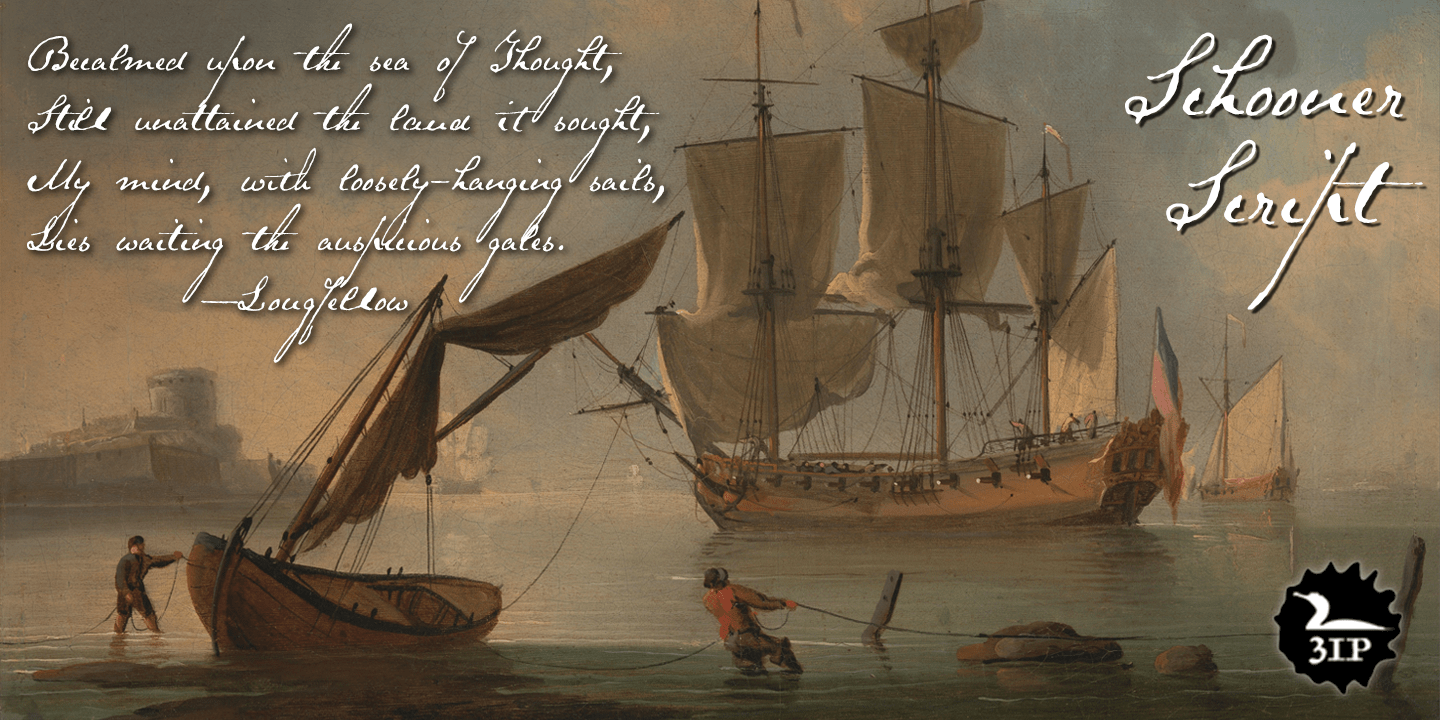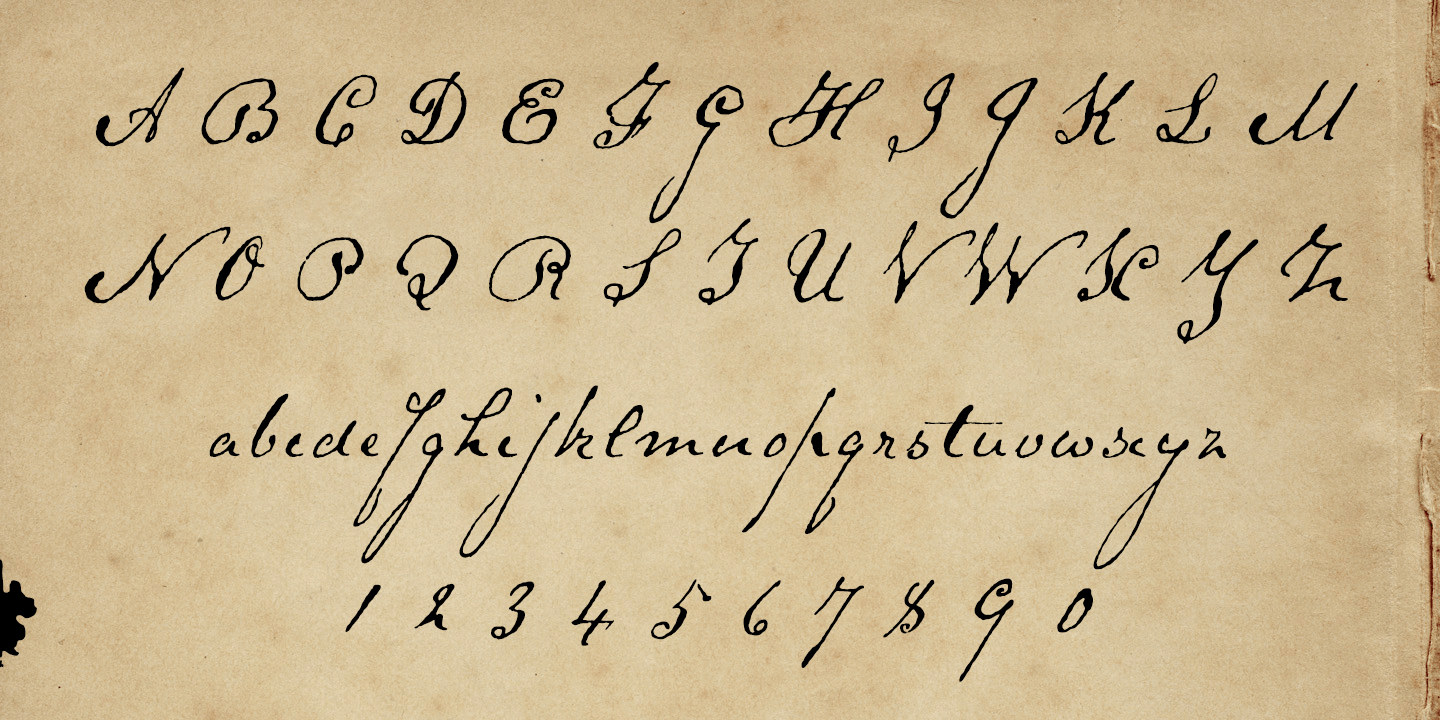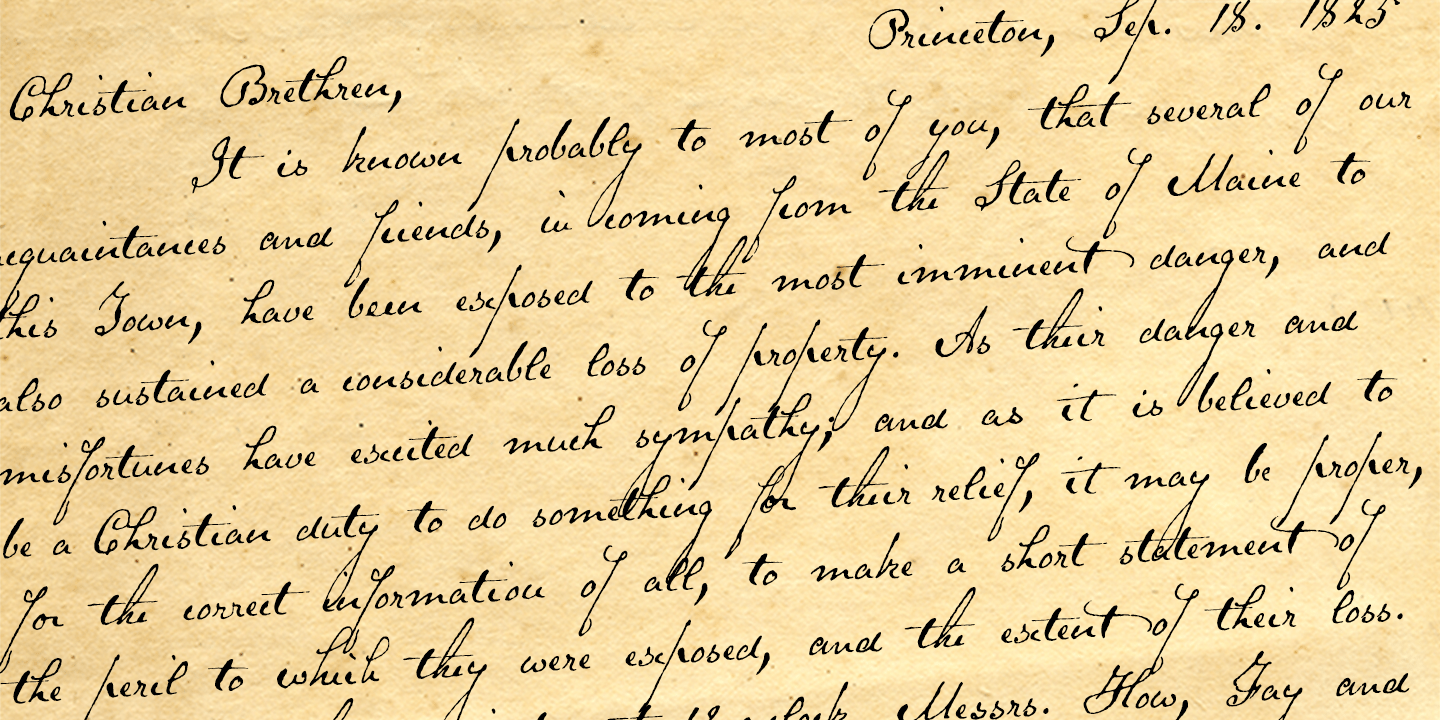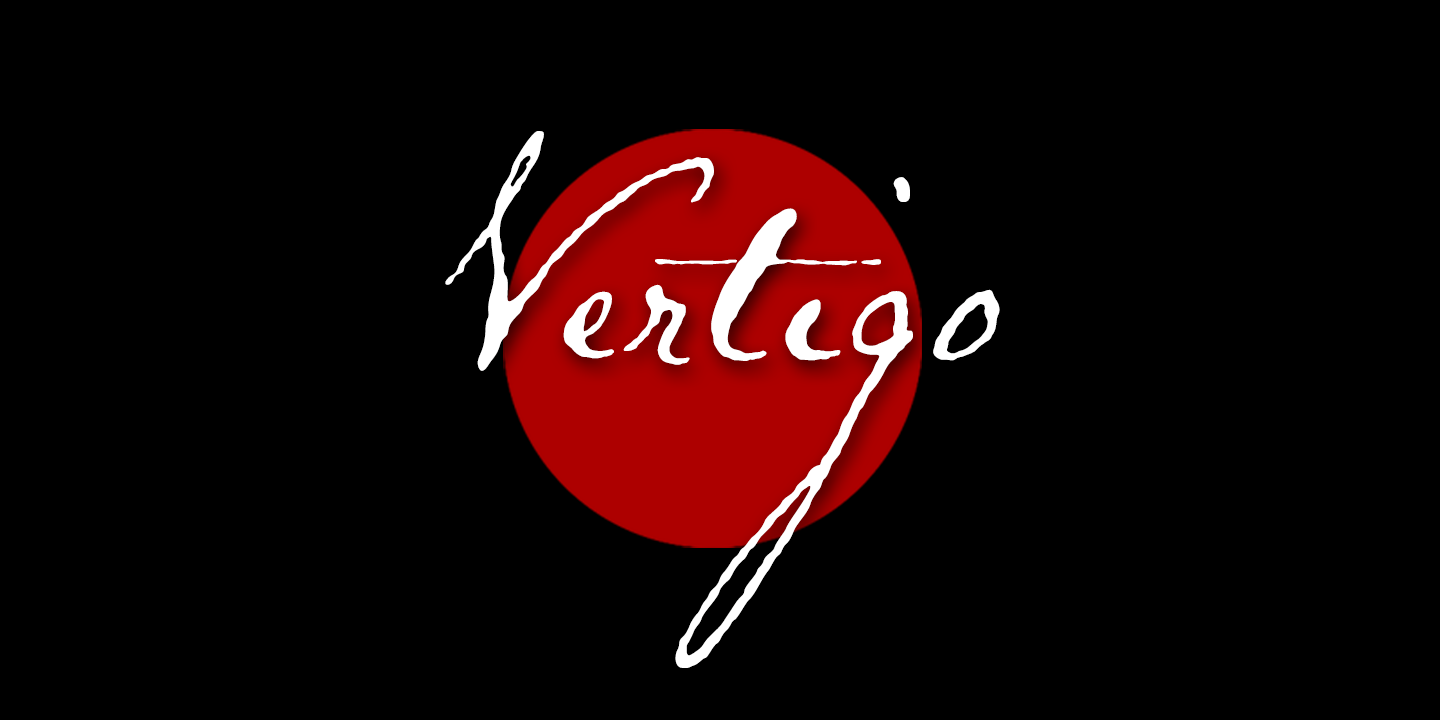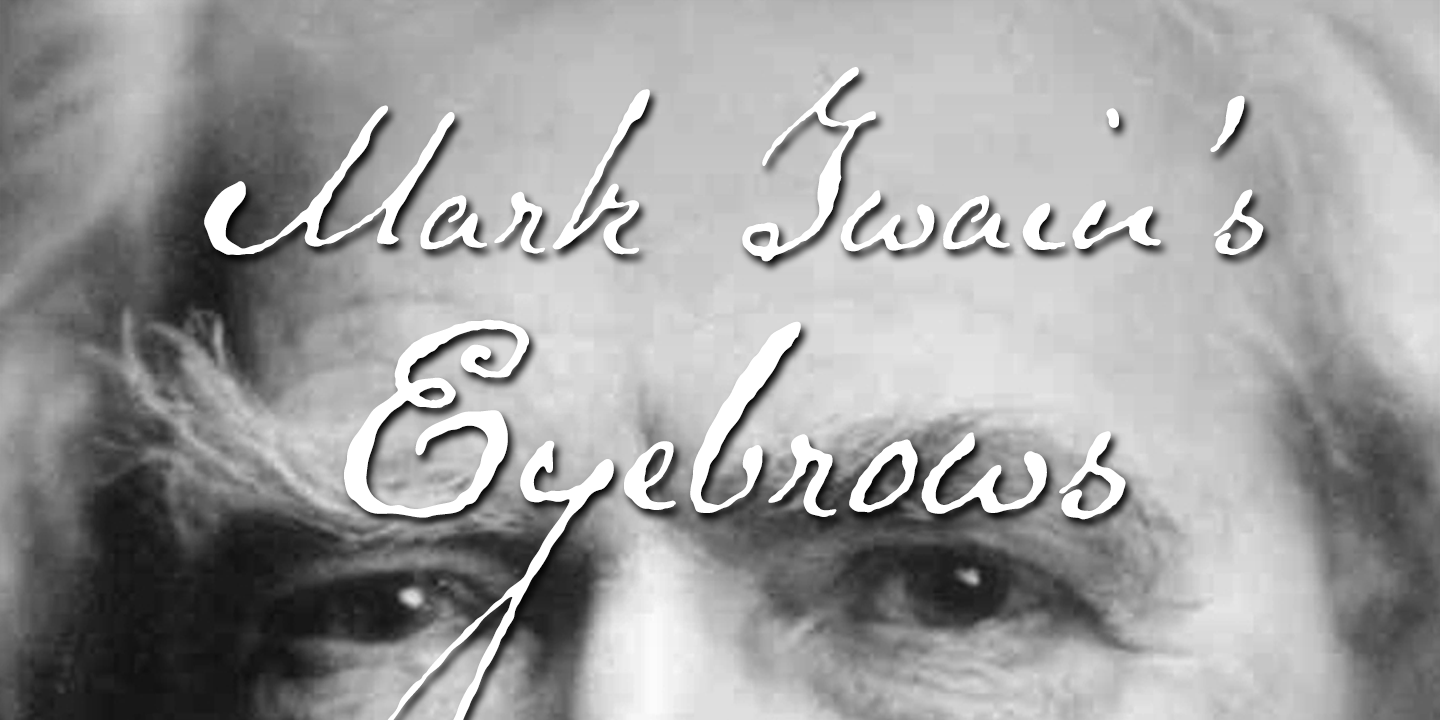
Schooner Script
I happened to mention to the proprietor of an antique barn near here that I'd be interested in any old typewriters she happened to come across. A conversation ensued, the proprietor withdrew into a back room, and she re-emerged with an old handwritten letter, dated 18 Sept. 1825 and spanning nearly three pages. The letter, penned by Samuel Clarke, a Princeton, Mass., pastor, sought donations for the victims of an accident at sea.
I thought his script unique, stylistic, and definitely something worth digitizing, so I bought the old letter and took it home. Had to come up with several uppercase characters to round out the set, but the results seem good and proper.